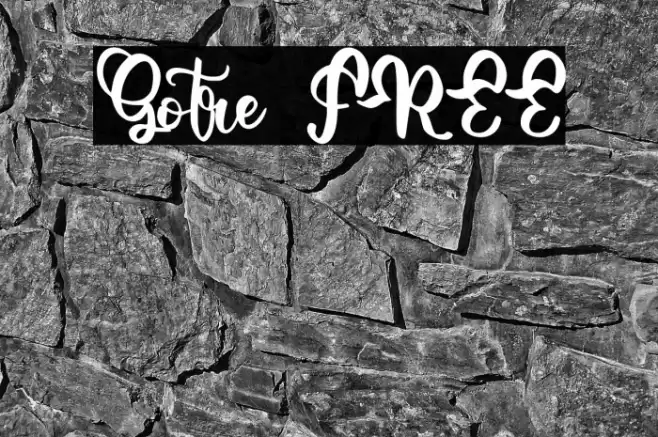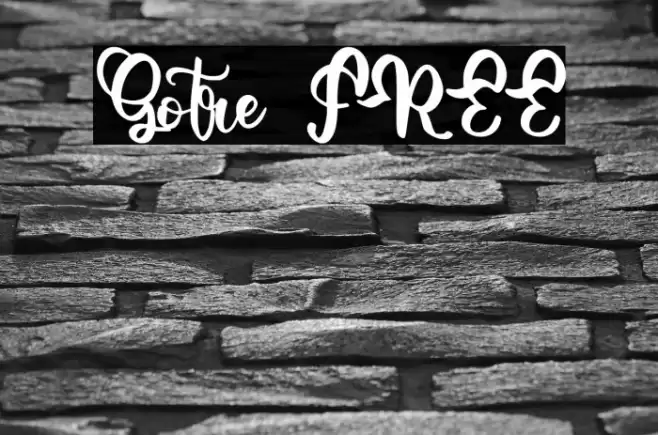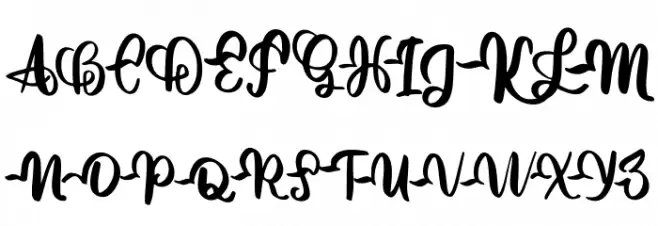
Gotre FREE Font
Gotre FREE Description
This font features a bold, decorative script style with a playful and artistic flair. The letters are interconnected with smooth, flowing curves, creating a sense of movement and elegance. The uppercase characters are particularly ornate, with exaggerated loops and swirls that add a touch of whimsy. The lowercase letters maintain a consistent style, with slightly less embellishment, allowing for readability while still retaining the font's unique character. The numbers and special characters are designed to match the overall aesthetic, ensuring a cohesive look across all text elements.
A bold, decorative script font with flowing, interconnected letters from Regular fonts.
- Proposed Projects: Ideal for wedding invitations, greeting cards, branding projects, and any design requiring a touch of elegance and creativity.
- Character Spacing: Tight
- Use Case: Logos, Invitations, Decorative Text